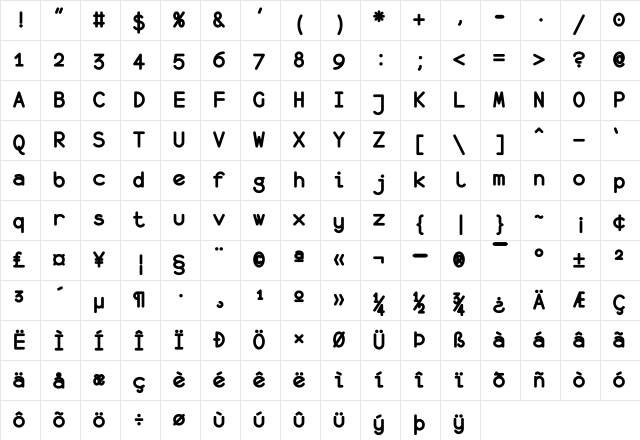
Monofurbold NF bold
Design Context for Monofurbold NF
Monofurbold NF uses fixed-width spacing throughout, giving it the structured, systematic character associated with coding environments and technical documentation. Its bold stroke weight gives it real presence on the page.
Pro Tip: Use Monofurbold NF with slightly increased line-height for extended reading - fixed-width spacing can feel dense in longer passages without extra breathing room.